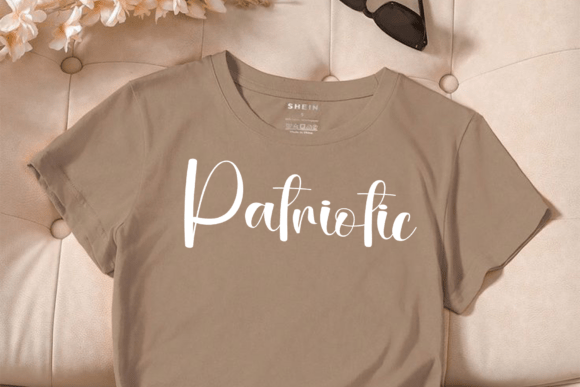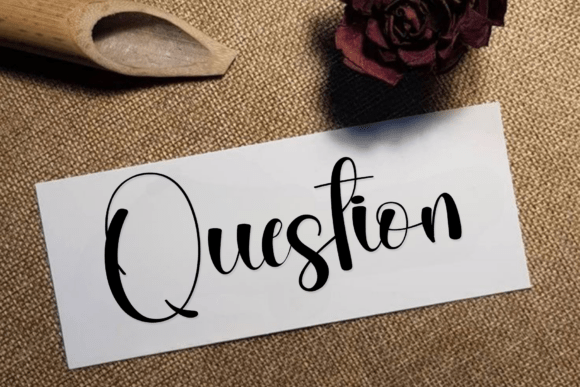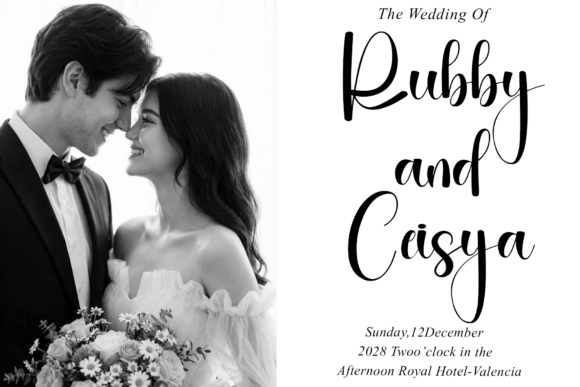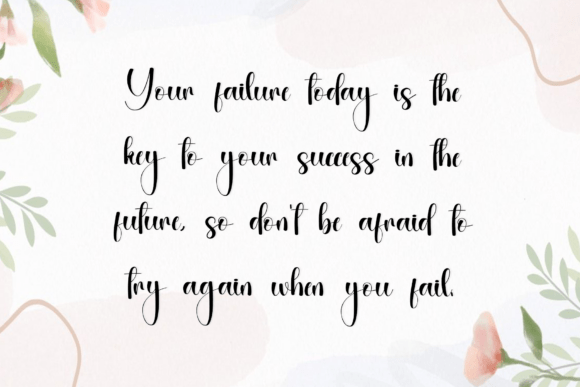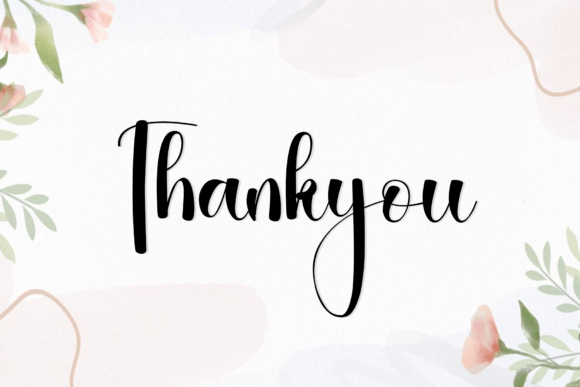
Gingerbread Font: A Refreshing Addition to Modern Handwritten Collections
In the realm of typography, few fonts manage to strike a balance between uniqueness, professionalism, and elegance. However, the Gingerbread Font stands out as a remarkable exception, offering a distinctive and refined aesthetic that is both modern and timeless. Designed to evoke a sense of clarity and crisp elegance, this font is an excellent choice for designers and crafters looking to add a touch of sophistication to their projects.
The Characteristics of Gingerbread Font
The Gingerbread Font is characterized by its tall, thin strokes and subtle, airy slant. This unique combination gives the font a sense of lightness and airiness, making it feel as fresh as a mountain breeze. The clean and approachable style of Gingerbread Font makes it an ideal choice for a variety of applications, including travel photography, branding for outdoor gear, and sophisticated web design.
Design Philosophy Behind Gingerbread Font
The design philosophy behind the Gingerbread Font revolves around creating a sense of clarity and elegance. The font’s creator aimed to produce a typeface that not only stands out in the modern handwritten collection but also brings a sense of refinement and sophistication to any project. The result is a font that feels both contemporary and classic, making it versatile for various design needs.
Applications of Gingerbread Font
The versatility of the Gingerbread Font makes it suitable for a wide range of applications. Here are some of the areas where this font truly shines:
• Travel Photography: The clean and airy feel of the Gingerbread Font makes it an excellent choice for travel photography. It adds a touch of elegance and sophistication to captions and titles, enhancing the overall visual appeal of travel albums and blogs.
• Branding for Outdoor Gear: For outdoor gear brands, the Gingerbread Font offers a unique opportunity to convey a sense of adventure and elegance. Its refined aesthetic appeals to customers looking for high-quality, sophisticated outdoor equipment.
• Sophisticated Web Design: In web design, the Gingerbread Font can be used to create visually appealing headings, titles, and even body text. Its readability and elegance make it an excellent choice for websites that aim to provide a premium user experience.
Why Choose Gingerbread Font?
Choosing the Gingerbread Font for your design projects comes with several benefits:
• Uniqueness: The Gingerbread Font offers a unique aesthetic that sets it apart from more traditional typefaces. Its distinctive style ensures that your designs stand out.
• Versatility: Whether you’re working on a travel blog, an outdoor gear website, or a sophisticated web application, the Gingerbread Font adapts seamlessly to various design contexts.
• Elegance: The font’s inherent elegance elevates any design, adding a touch of sophistication and refinement.
Tips for Using Gingerbread Font Effectively
To make the most of the Gingerbread Font, consider the following tips:
• Pair with Complementary Fonts: While the Gingerbread Font is elegant on its own, pairing it with complementary fonts can enhance its beauty. Choose fonts that offer a good contrast in terms of style and weight.
• Adjust Letter Spacing: For optimal readability, especially in longer texts, adjust the letter spacing to ensure that the text flows smoothly.
• Experiment with Colors: The Gingerbread Font works well with a variety of colors. Experiment with different color schemes to find the one that best suits your design’s mood and purpose.
Author Preketek texs
The Gingerbread Font is a unique and professional addition to the modern handwritten collection. Its tall, thin strokes and subtle, airy slant offer a refined aesthetic that feels fresh and elegant. Ideal for travel photography, branding for outdoor gear, and sophisticated web design, this font is sure to elevate your designs with its clarity and crisp elegance. Whether you’re a designer or a crafter, the Gingerbread Font is an excellent choice for anyone looking to add a touch of sophistication to their projects.